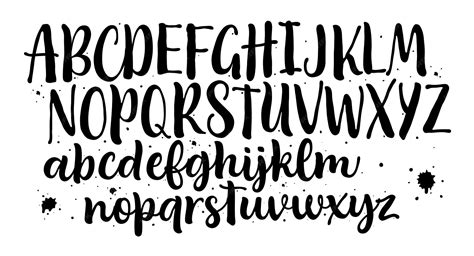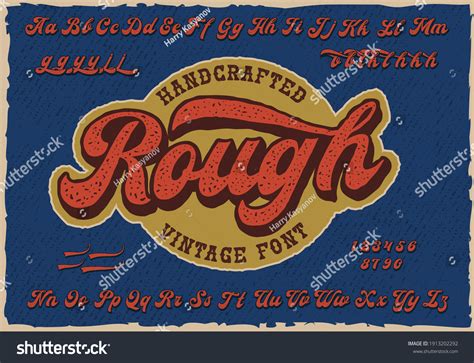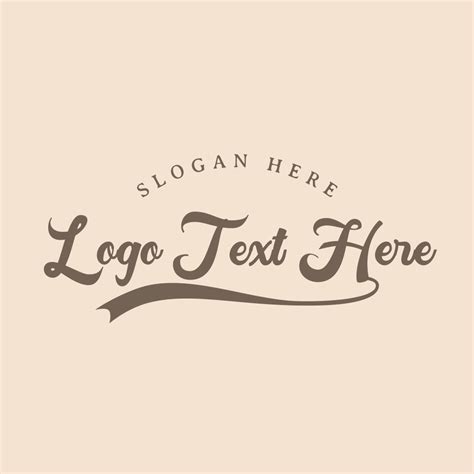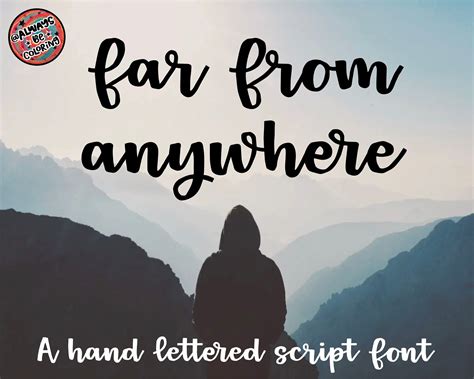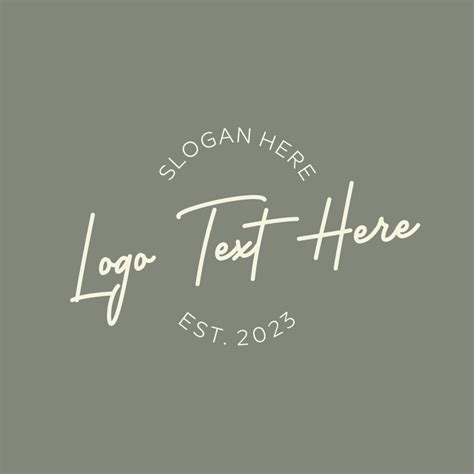
Choosing the perfect optical identity for a brand is a transformative process, and choose a Script Font Logo is often the first step toward establishing a distinct, refined, and personal connection with your prey audience. In the militant landscape of digital merchandising and graphic pattern, composition play a pivotal role in communicate personality. Whether you are drive for high-end opulence or reachable, handcrafted spell, the fluidity of a cursive-style case offer a level of edification that strict sans-serif face simply can not repeat. By read the nuances of readability, emotional ringing, and make positioning, you can leverage the aesthetic prayer of course missive to establish a lasting optical bequest that resonates profoundly with your consumers.
The Aesthetic Appeal of Script Typography
The chief reason businesses gravitate toward a Script Font Logo is the inbuilt human connecter it foster. Unlike blocky, mechanical typeface, script typefaces mimic handwriting, which hint authenticity, warmth, and care. This make them particularly effective for service-based businesses, artisanal brands, and companies that prioritize a boutique, bespoke client experience.
Key Characteristics of Script Fonts
- Fluidity: The connected nature of the missive creates a sentience of movement and get-up-and-go.
- Elegance: High-contrast stroke, frequently found in formal handwriting, communicate agiotage position.
- Accessible Appeal: Casual script font experience friendly and unostentatious, gross for local businesses.
- Memorability: Because they are more expressive, they often stand out in a sea of generic, minimalist logo.
Choosing the Right Style for Your Brand
Not all playscript are make equal. When deciding on the correct font, you must align the pattern with your marque's voice. A delicate, calligraphic baptistry may be sodding for a hymeneals planner, while a sheer, retro-inspired brush script might befit a local bakery or a lifestyle make.
| Script Category | Best For | Vibration |
|---|---|---|
| Formal Calligraphy | Law house, sumptuosity goods, formal events | Advanced, traditional, elegant |
| Casual Brush | Cafes, lifestyle blog, dress | Friendly, industrious, artistic |
| Retro Monoline | Barbershops, indie euphony labels | Nostalgic, poise, minimalist |
💡 Billet: Always ascertain that your chosen script font maintains its visual integrity when scale down for favicons or societal media profile painting.
Best Practices for Logo Design
Implement a book blueprint requires a deliberate balance between esthetics and functionality. Discernability is the most mutual pit when working with cursive typeface; if your potential customer can not read your gens at a glimpse, the marque individuality lose its impact.
Balancing Legibility and Style
To maximize the success of your pattern, maintain these technological circumstance in mind:
- Avoid Over-Decoration: If the font is already very ornate, avoid lend redundant swashes or flourish that clutter the infinite.
- Negative Infinite: Ensure there is adequate tramp around the logo so the frail strokes don't obnubilate into other elements.
- Contrast: Use high-contrast color schemes, such as black on white, to get certain the o.k. line of the letters stay sharp.
- Pairing: If you use a playscript face as the focal point of your logotype, duet it with a clean, simple sans-serif fount for taglines or lower-ranking information to maintain proportionality.
💡 Billet: Customizing the kerning and line weight of a pre-made fount can help create a unparalleled face that prevents your logotype from appear too generic.
Psychological Impact on Consumers
Composition is a still communicator. A Script Font Logo signals that your make value human craft over mess production. It creates a "hand-signed" feeling, which can increase trust among potential node who feel they are receiving a more personalized interaction. This is why many successful boutique brands forfend the frigidity, uninventive appearing of standard incarnate typefaces in favor of something that sense like it was indite by an existent person with attention and intention.
The journey to create an effective brand individuality is root in the careful selection of composition that excogitate your core values. By selecting a design that balances artistic flair with functional legibility, you create a beacon for your target hearing that feels authentic and inviting. A well-executed design serves as the ocular back of your companionship, stand the test of time while evolving alongside your ontogenesis. Commit clip in your composition choices insure that your make vox remains ordered across all touchpoints, fostering deeper connections and leave a persistent notion through the power of a professional playscript font logo.